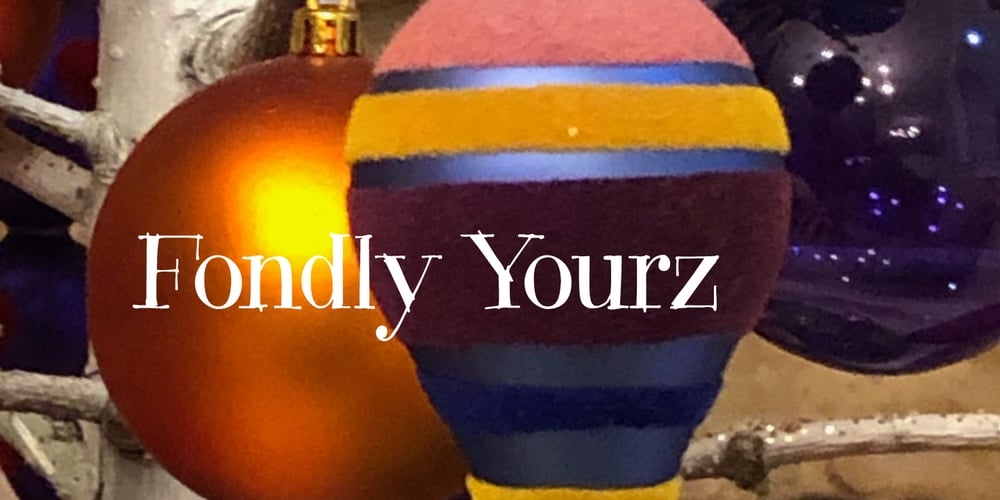
Fondly Yourz Font Family was designed by Rae Kaiser and published by Outside the Line. Fondly Yourz contains 1 styles and family package options. Fondly Yourz is a less than serious, hand drawn serif font. This headline font has nice thick and thin lines. Pair it with a sans serif font for body copy for a fresh contemporary look. Fondly Yourz can be seen in the 2012 Typodarium Page-A-Day Calendar on 8-13-2012.